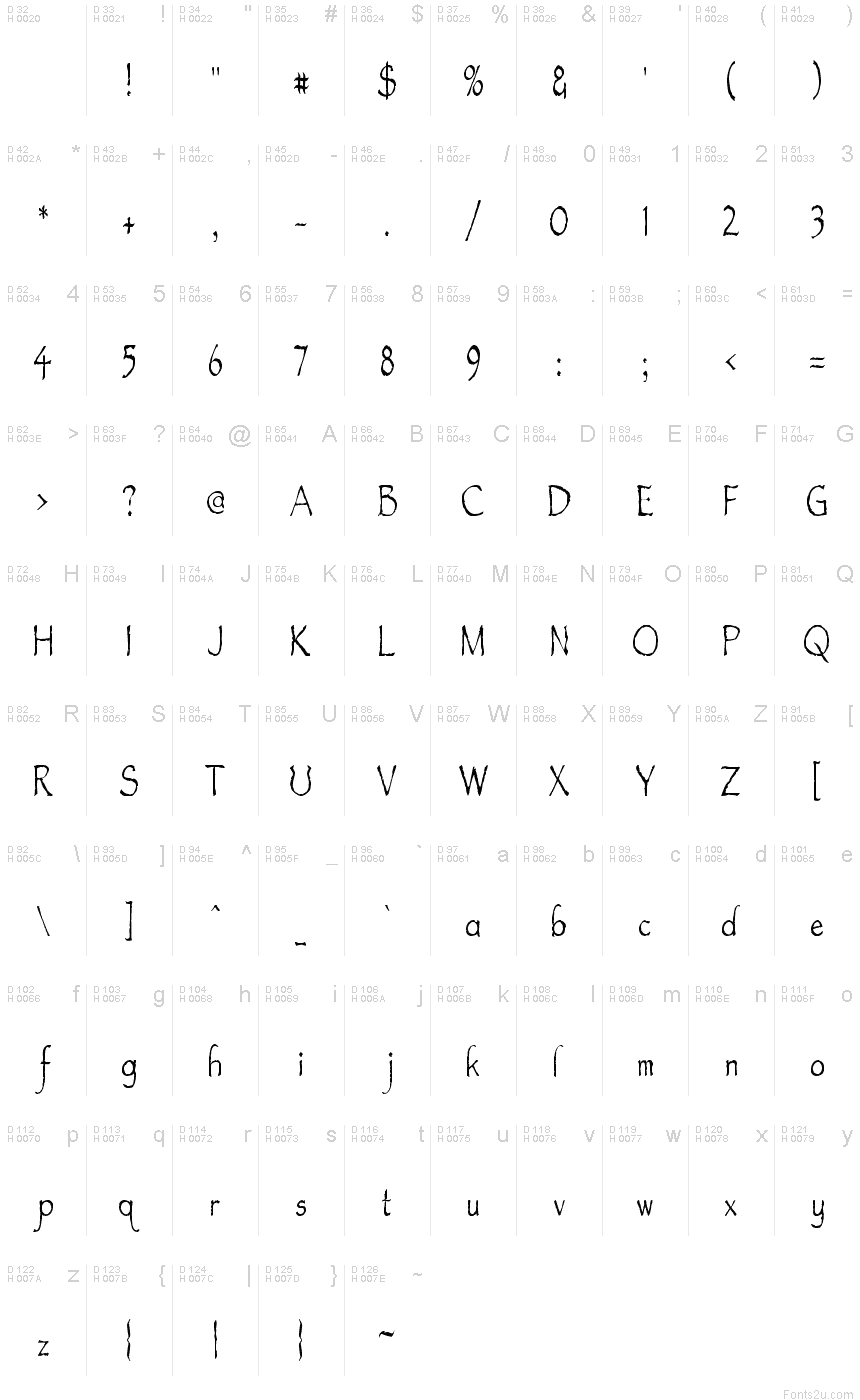
Feldicouth Compressed
Feldicouth Compressed by Three Mile Island is a free handwritten display font with tall, wiry letters and visibly uneven strokes. Its loose curves feel quickly drawn.
Illustrated monsters, quirky creatures, and scratchy line art share its spindly contours, making the lettering useful for children's book covers, game graphics, and comic posters. Those applications, along with offbeat merchandise, are connected by a handmade awkwardness that suits humorous and slightly strange imagery.